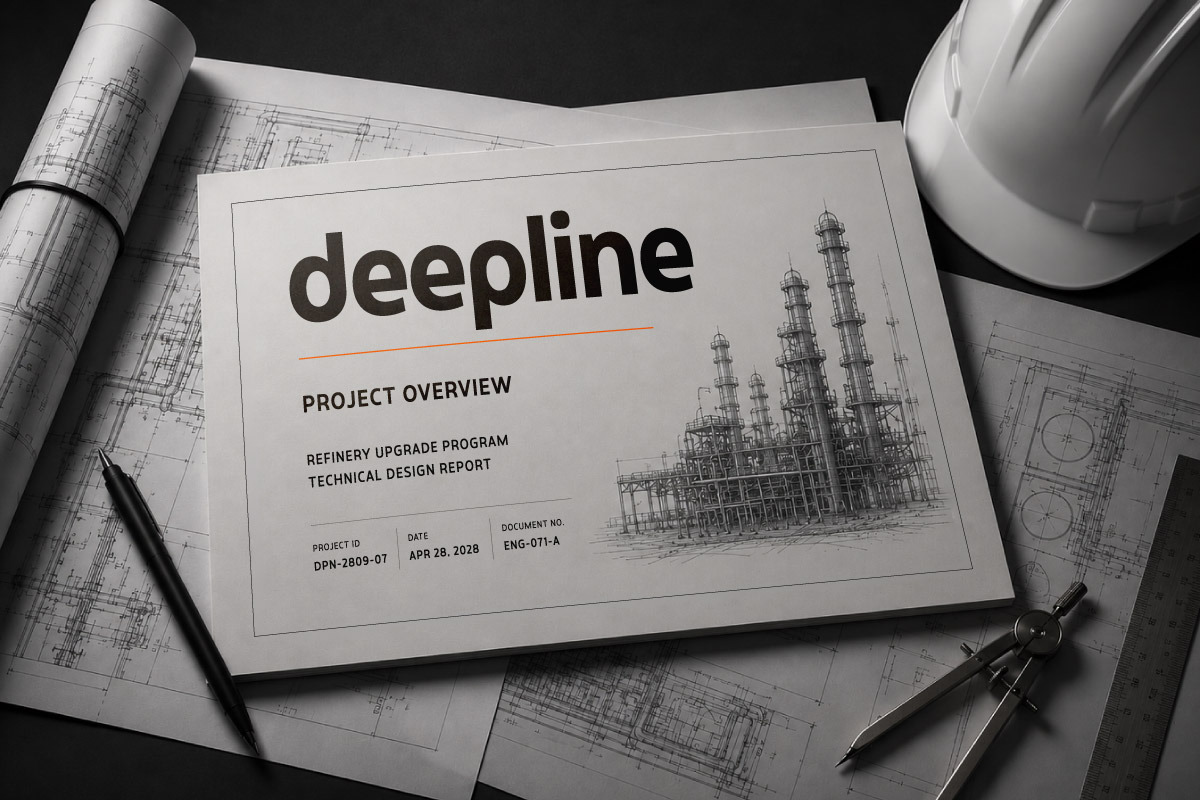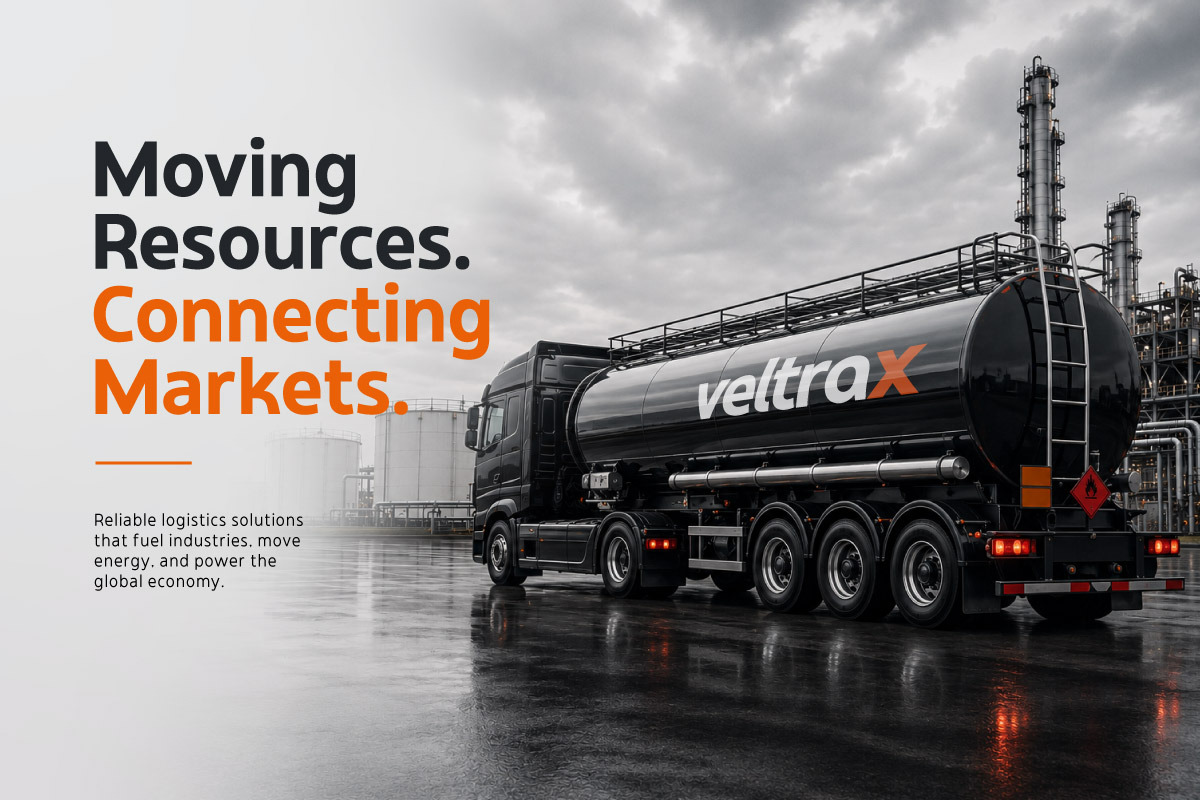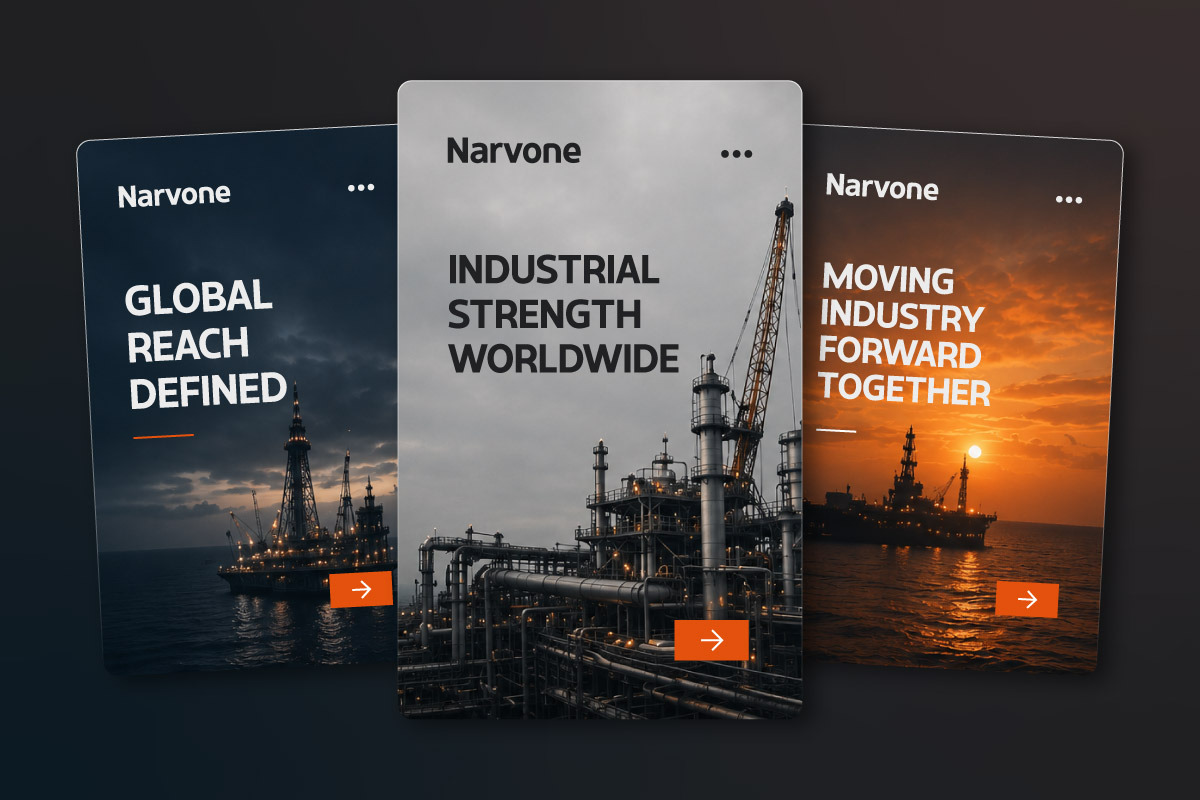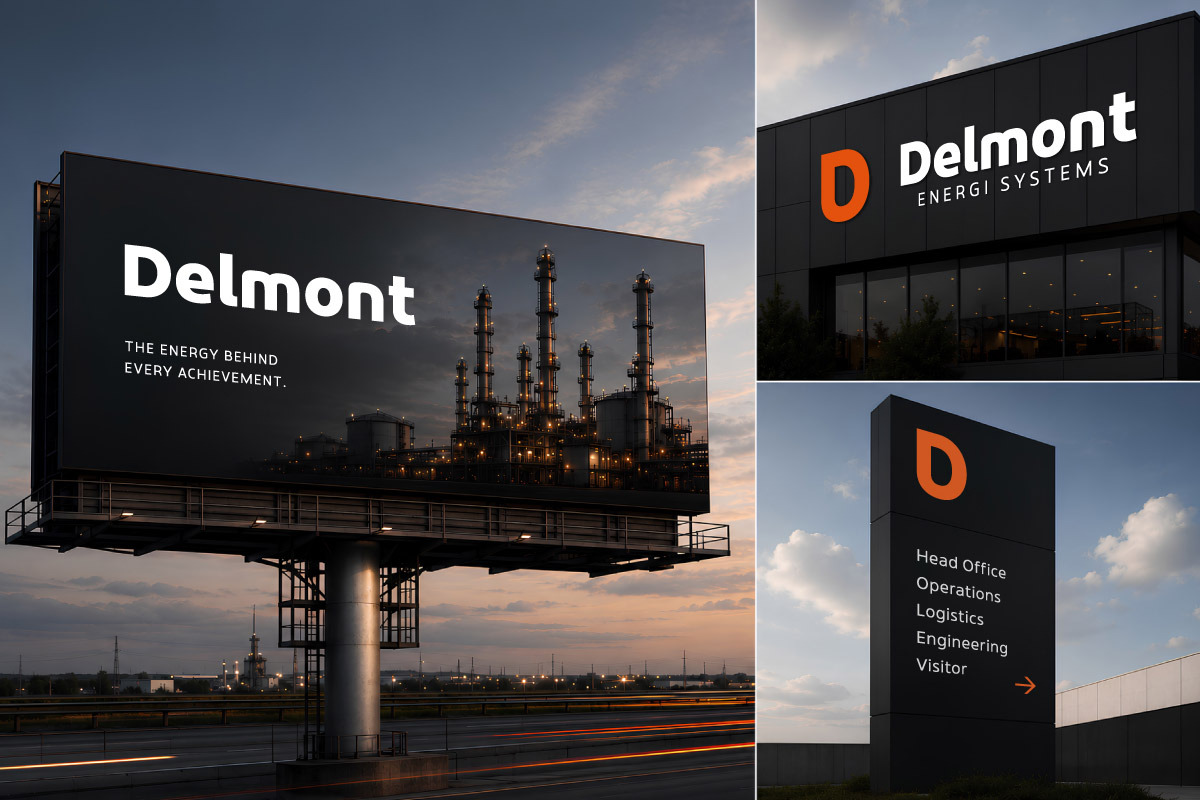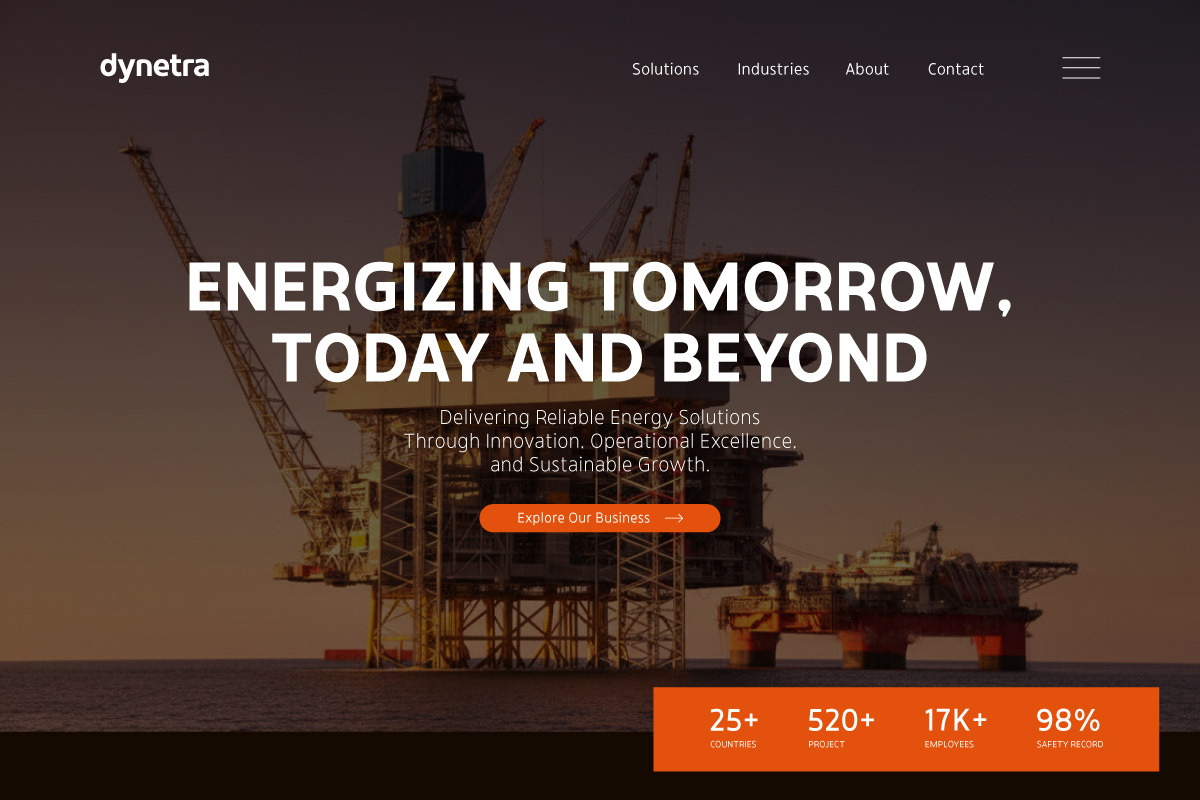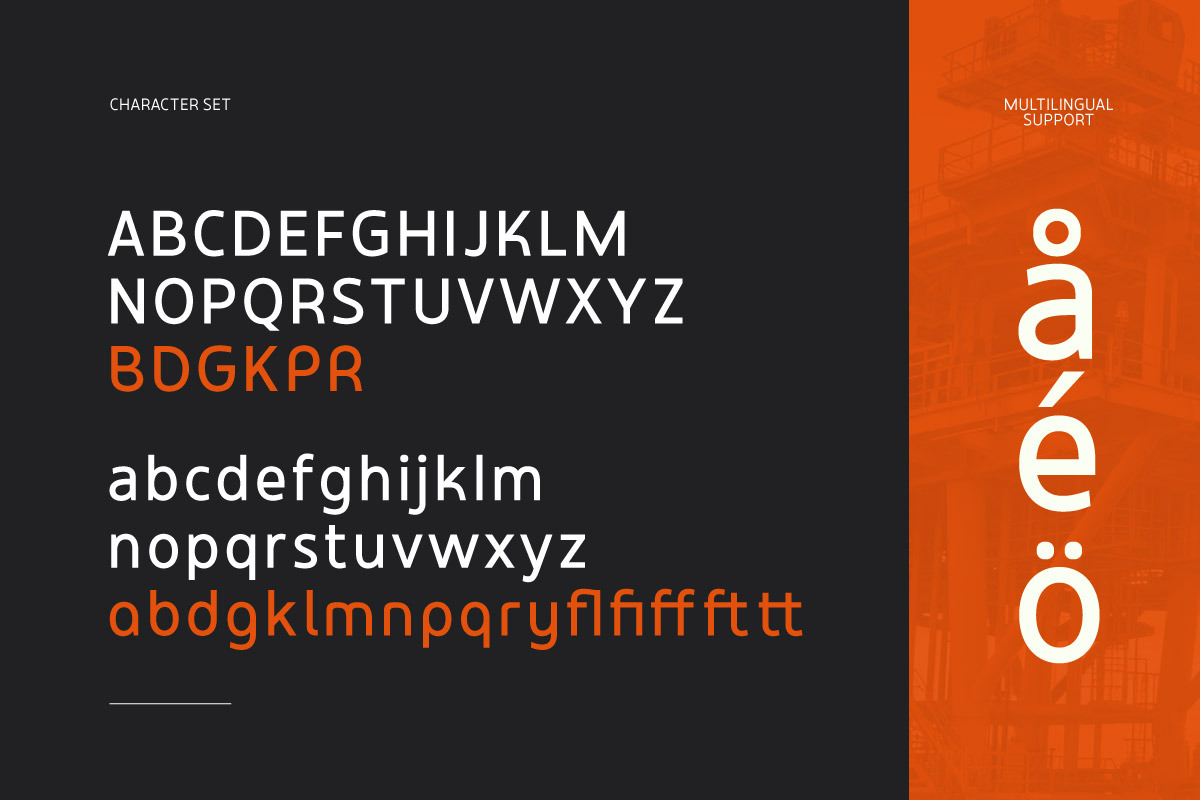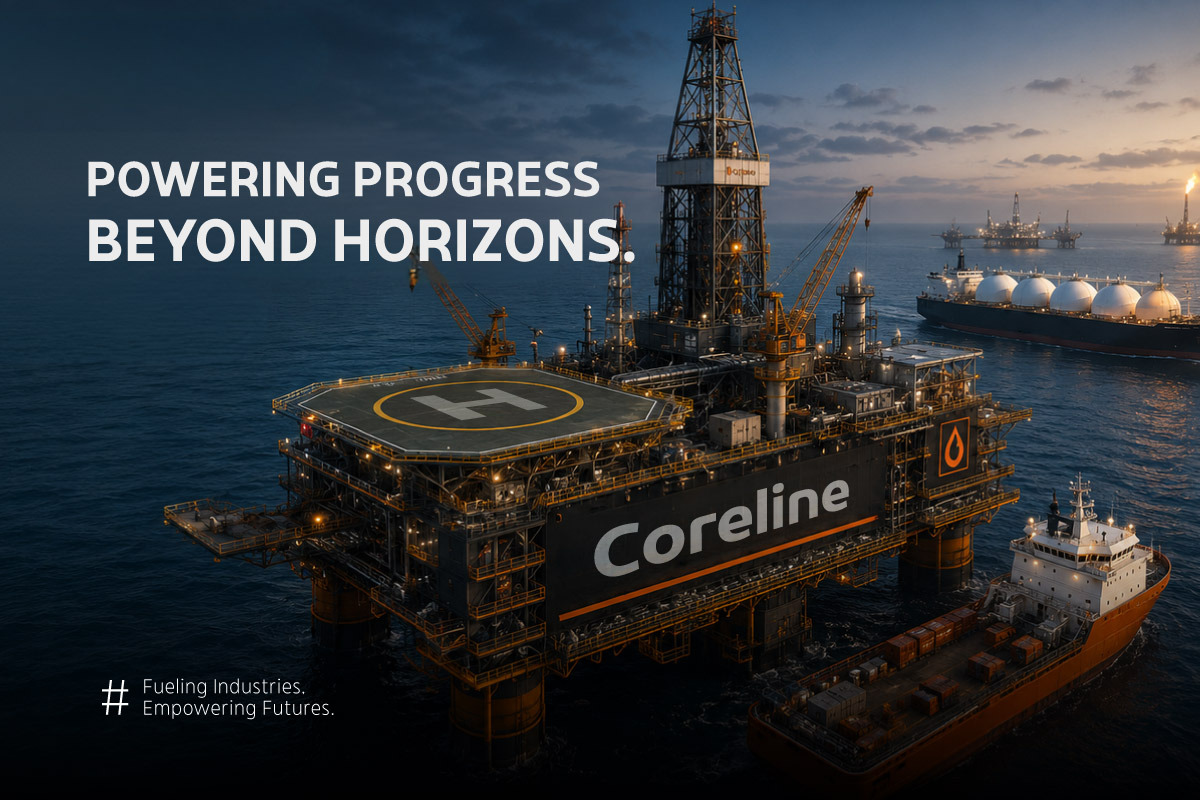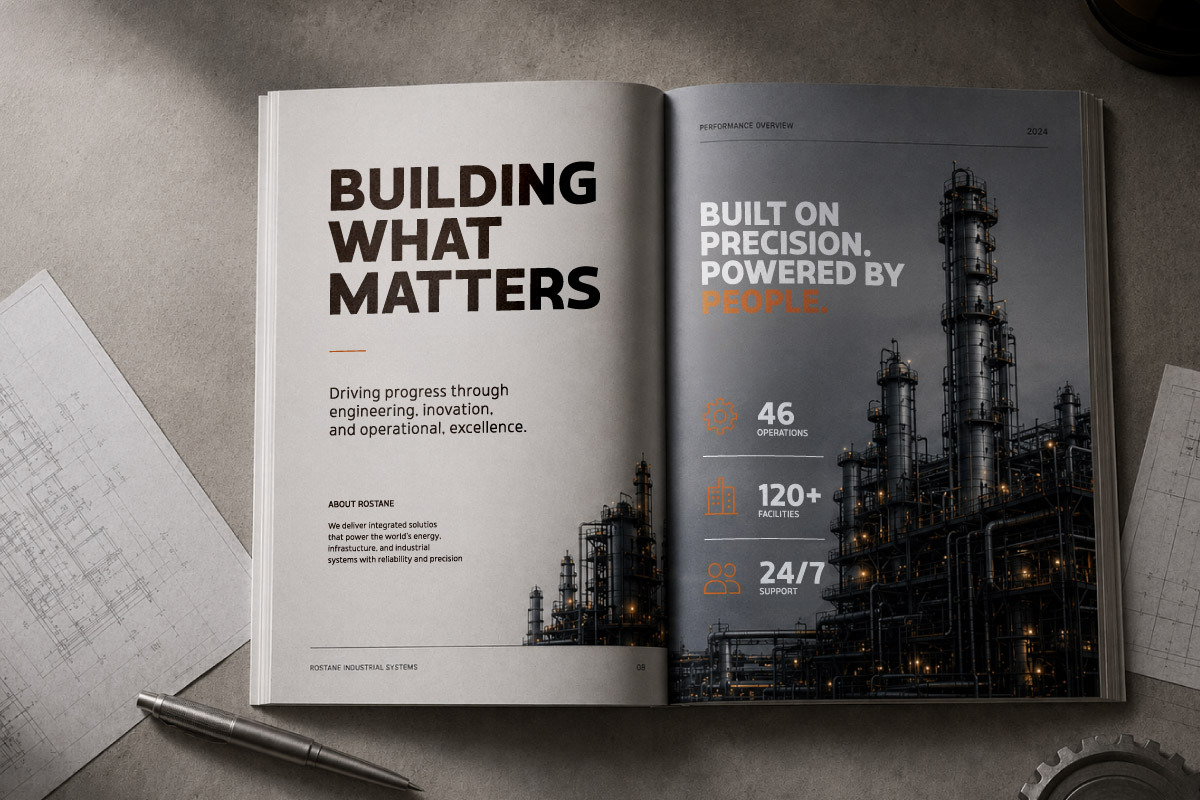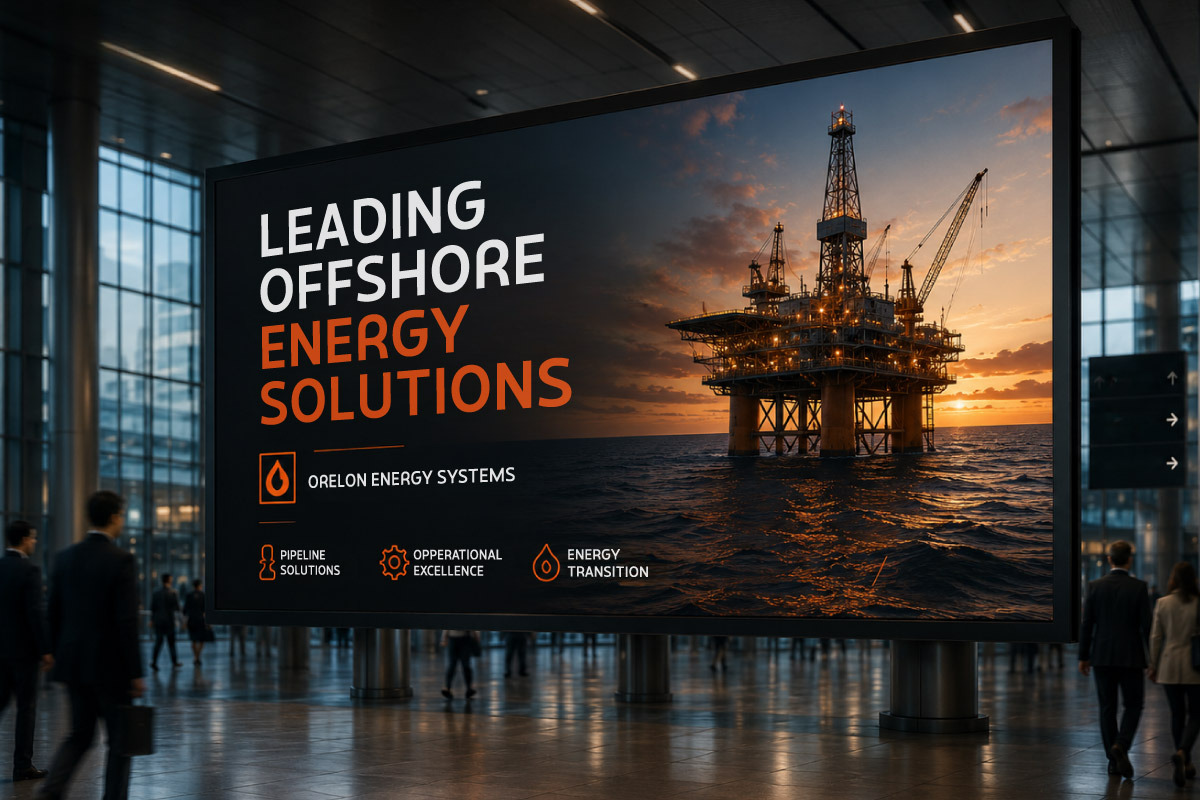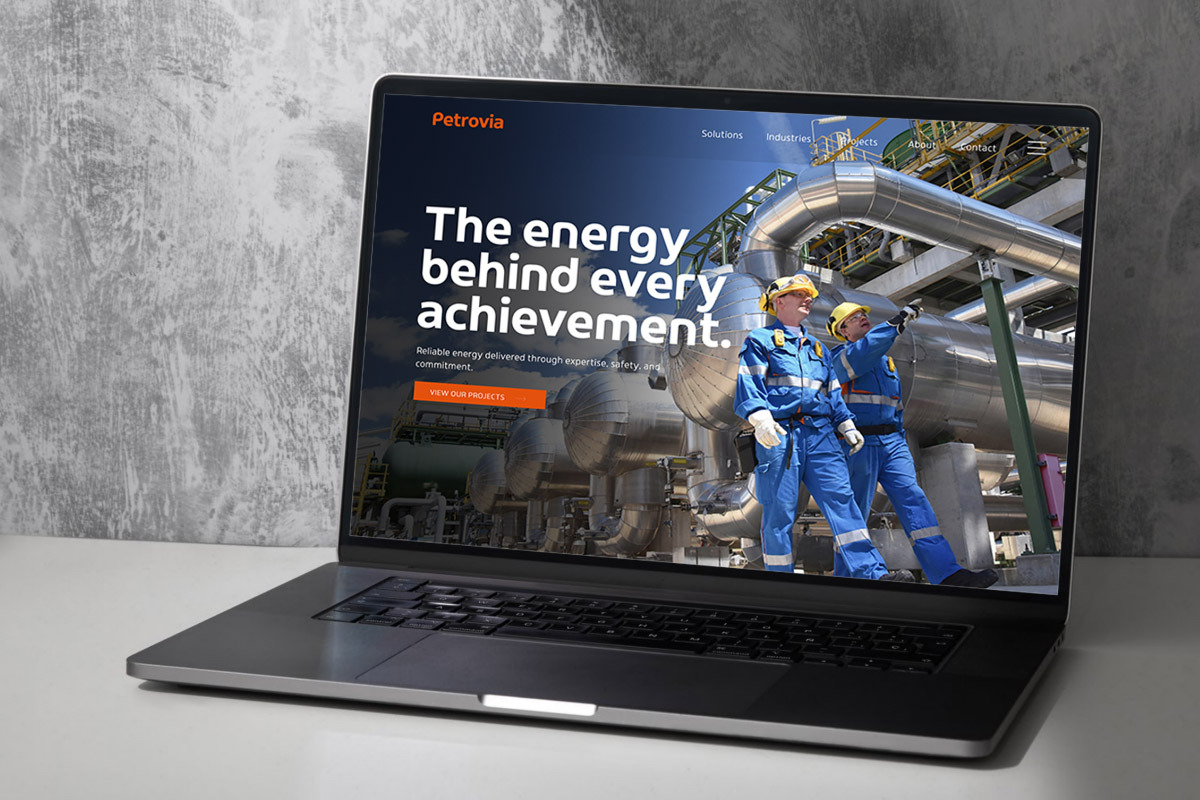
Rinteva Grid - Sans for Oil & Gas
Rinteva Grid is a modern sans serif typeface crafted to deliver a strong, professional, and industrial-driven visual identity. Featuring bold letterforms, stable proportions, and clean construction, it is perfectly suited for energy companies, oil and gas corporations, engineering firms, manufacturing businesses, logistics providers, and industrial technology brands.
Inspired by the world of engineering and heavy industry, Rinteva Grid communicates reliability, strength, and operational excellence. It performs exceptionally well in headlines, corporate branding, company websites, annual reports, presentations, industrial packaging, and marketing materials that require a confident and authoritative appearance.
Whether you're building a global energy brand or creating a modern industrial identity, Rinteva Grid provides the professional typography needed to establish trust, credibility, and long-term brand recognition.
- Multilingual Support: Fully supports 85+ languages, including:
Afrikaans, Albanian, Asu, Basque, Bemba, Bena, Breton, Catalan, Chiga, Cornish, Croatian, Czech, Danish, Dutch, Embu, English, Esperanto, Estonian, Filipino, Finnish, French, Friulian, Galician, Gusii, Hungarian, Indonesian, Irish, Italian, Kabuverdianu, Kalenjin, Kamba, Kikuyu, Kinyarwanda, Latvian, Lithuanian, Lower Sorbian, Luo, Luxembourgish, Luyia, Machame, Makhuwa-Meetto, Makonde, Malagasy, Maltese, Manx, Meru, Morisyen, North Ndebele, Norwegian Bokmål, Norwegian Nynorsk, Nyankole, Oromo, Polish, Portuguese, Quechua, Romanian, Romansh, Rombo, Rundi, Rwa, Samburu, Sango, Sangu, Scottish Gaelic, Sena, Serbian, Shambala, Shona, Slovak, Slovenian, Soga, Somali, Spanish, Swahili, Swedish, Swiss German, Taita, Teso, Turkish, Upper Sorbian, Uzbek (Latin), Volapük, Vunjo, Walser, Zulu.